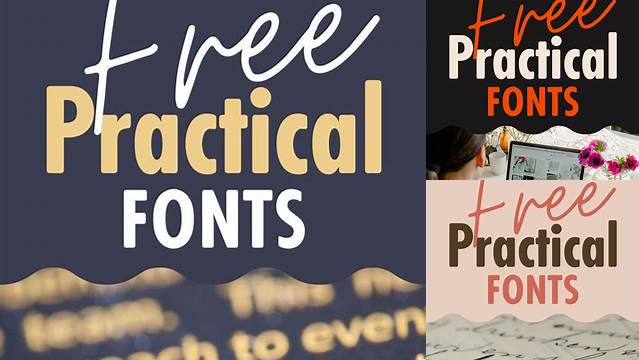
Stunning Free Fonts For Commercial Use
Hey guys! Finding the perfect font for your project can be a game-changer, right? Especially when you're looking for something that's both beautiful and free for commercial use. It’s like hitting the jackpot! But with so many options out there, where do you even begin? Don't worry, we've got you covered. Let's dive into the world of amazing fonts that won't cost you a dime and are ready for your next big thing.
Why Use Free Fonts for Commercial Use?
What Makes a Font Beautiful?
Okay, so what exactly makes a font beautiful? It's kind of subjective, right? But there are some key elements that usually make a font stand out. Think about things like the font's overall style – is it elegant and flowing, or bold and modern? The letterforms themselves play a huge role; the curves, angles, and proportions all contribute to the font's aesthetic appeal. And don't forget about readability! A beautiful font should also be easy on the eyes and legible in various sizes and contexts. Color also affects how beautiful a font may appear. Essentially, a truly beautiful font strikes a balance between visual appeal and practicality. It looks gorgeous while still being functional and easy to read. It should complement the overall design and message, not distract from it. Ultimately, a font's beauty lies in its ability to communicate effectively and enhance the visual experience.
Font Pairing Tips for Stunning Designs
Font pairing is like the secret sauce to amazing design, guys! It's all about combining different fonts that complement each other to create a visually appealing and cohesive look. Think of it as finding the perfect harmony between different personalities. A common strategy is to pair a strong, bold font for headings with a cleaner, more legible font for body text. This creates a nice visual hierarchy and makes your content easier to read. Another tip is to choose fonts from different font families – like pairing a serif font (those with little feet) with a sans-serif font (those without feet). This contrast can add interest and visual appeal. Just remember, the goal is to create balance and readability. Don't go overboard with too many fonts, as this can make your design look cluttered and confusing. Stick to two or three fonts max, and experiment with different combinations until you find a pairing that really sings.
Serif Fonts: Classic and Elegant
Serif fonts are those timeless classics that have the little “feet” or strokes at the ends of the letters. They're often described as elegant, traditional, and authoritative. Think of fonts like Times New Roman, Garamond, and Georgia – these are all serif fonts. They tend to work really well in print materials, like books, magazines, and newspapers, because the serifs can help guide the reader’s eye across the page. But don’t think they’re just for print! Serif fonts can also add a touch of sophistication to websites and logos. When choosing a serif font, consider the overall tone you want to convey. A more delicate serif might be perfect for a luxury brand, while a bolder serif could work well for a more serious or academic project. And remember, pairing is key! Serif fonts often pair beautifully with sans-serif fonts for a balanced and visually appealing design.
Sans-Serif Fonts: Modern and Clean
Sans-serif fonts are the modern, minimalist cousins of serif fonts. The term